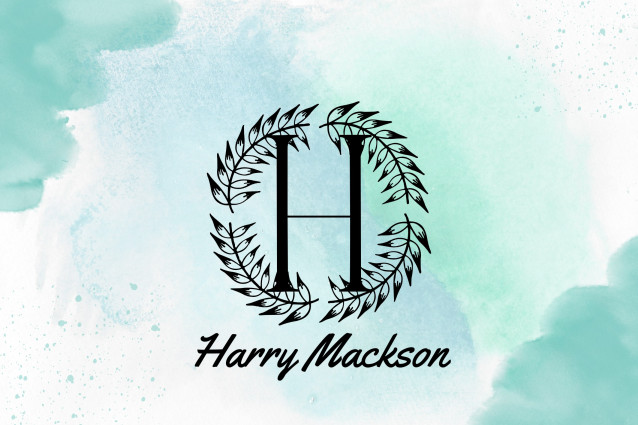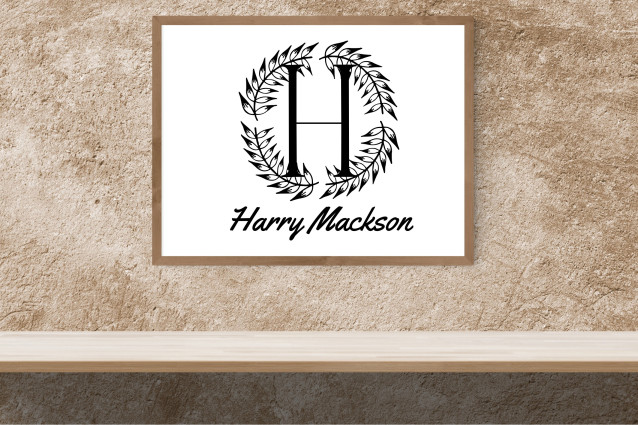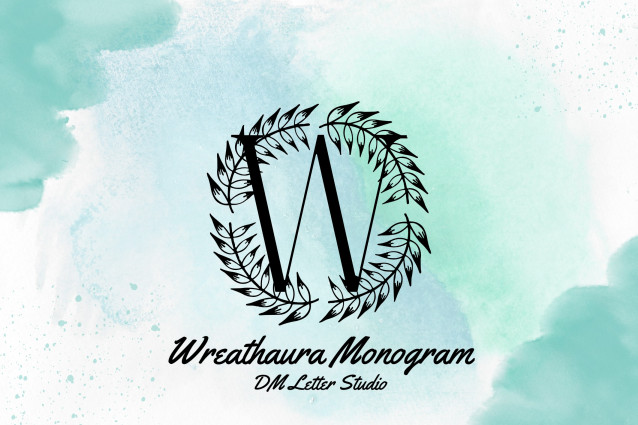
Wreathaura Monogram Font
Wreathaura Monogram Font is a dreamy and whimsical monogram font that wraps each uppercase letter in a delicate hand-drawn wreath. Inspired by fairy tale botanicals and soft romantic design, this font is ideal for wedding logos, baby shower prints, boutique branding, seasonal packaging, and personalized gifts. Wreathaura blends gentle curves and leafy accents to bring an aura of magic and elegance to every project.